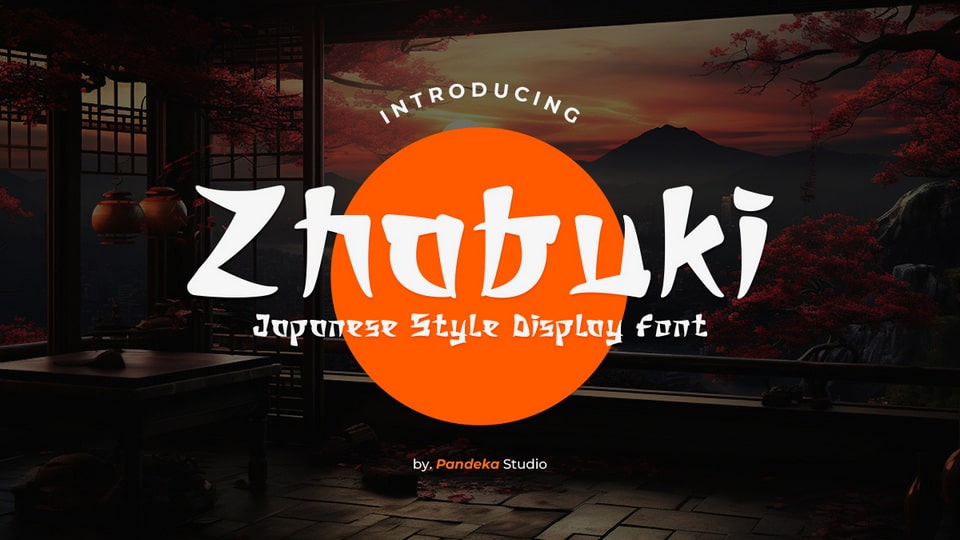
Download Zhabuki font, a stunning display font inspired by the beauty of Japanese and Korean aesthetics. Zhabuki is the perfect choice for bringing authentic Asian vibes into your designs.